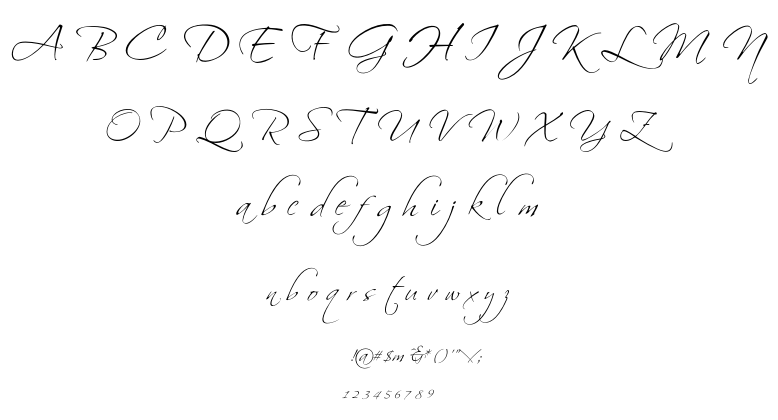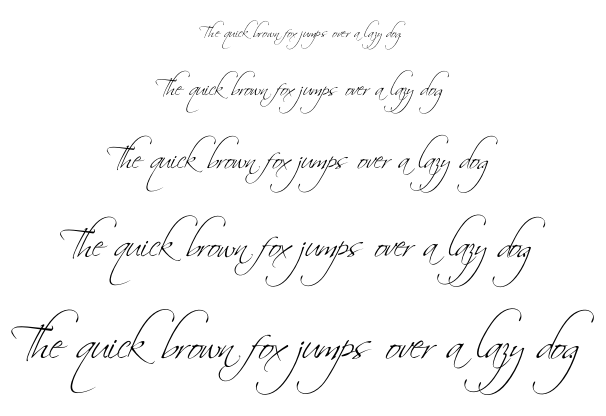
Scriptus is another version of “Scriptina” font, by Apostrophyc Labs (http://apostrophiclab.pedroreina.net ), and has three differences from it’s origin: a most careful spacing, 2816 kerning pairs (Scriptina True Type has none) and soft hooks instead of large descender and ascender closed laces which are wonderful, but
makes confuse legibility, sometimes.